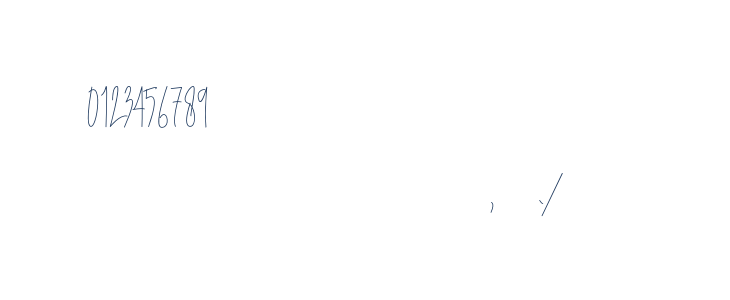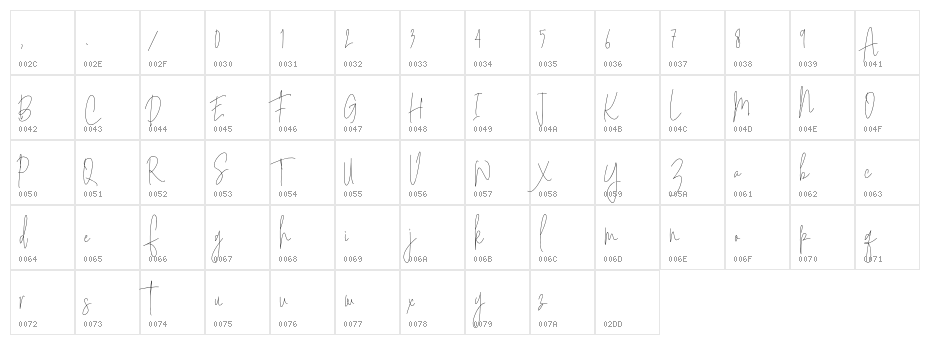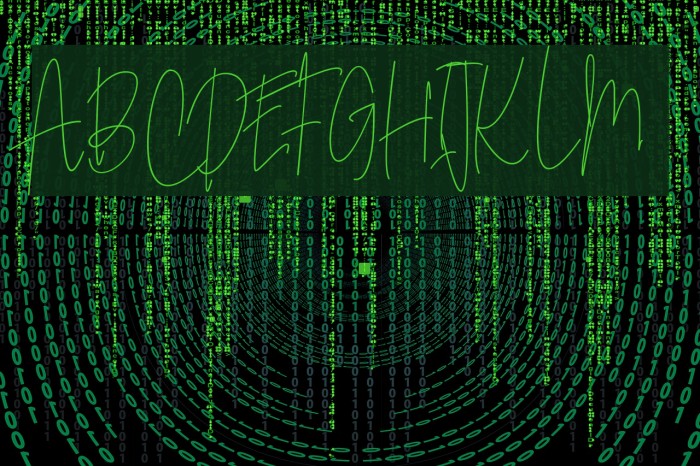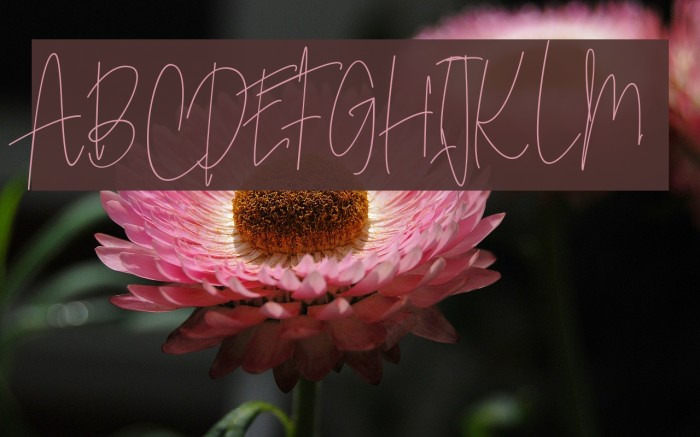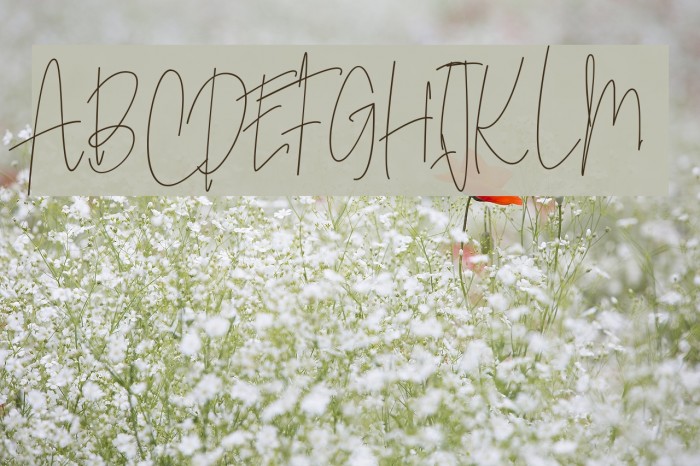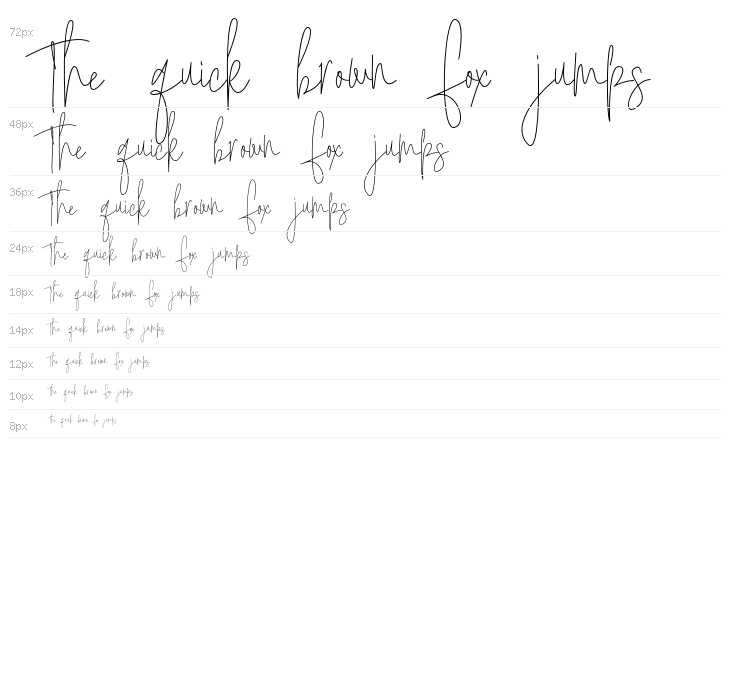
SoderaPersonalUse Font
SoderaPersonalUse Description
This font features a distinctive handwritten style with an elegant and flowing script. The characters are elongated and slightly slanted, giving a sense of movement and grace. The uppercase letters are tall and narrow, while the lowercase letters maintain a consistent height, creating a harmonious balance. The strokes are thin and delicate, contributing to a light and airy feel. The numbers are consistent with the overall style, maintaining the same thin strokes and elegant curves. Special characters are seamlessly integrated, matching the font's aesthetic. This font exudes a personal and artistic touch, ideal for projects that require a unique and expressive typeface.